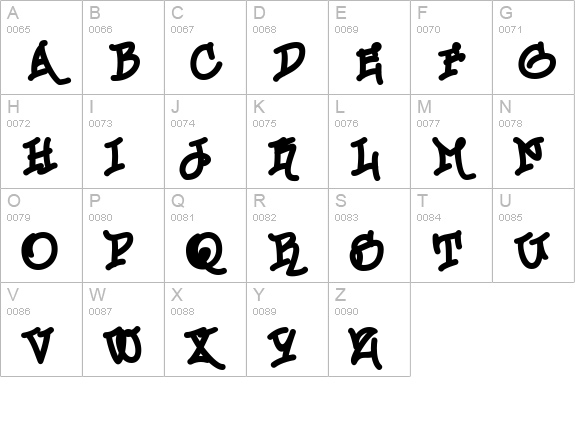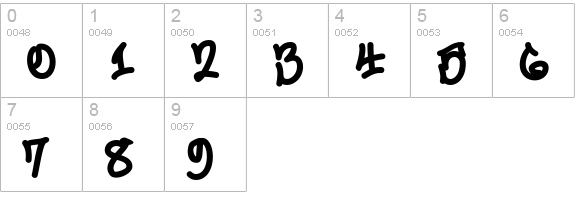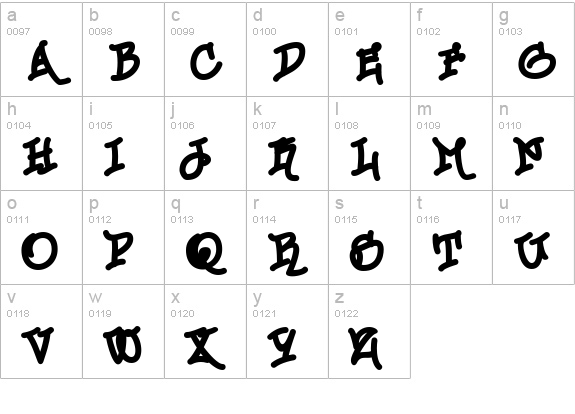
Urban Scrawl Chill font is a stunning display font that effortlessly combines urban grit with a chilled-out vibe. Its bold and dynamic letterforms exude a sense of coolness, making it perfect for a wide range of creative projects. This font captures the essence of street art and graffiti, with its rough edges and hand-drawn aesthetic. Every character is uniquely crafted, giving your designs a one-of-a-kind look. Whether you're designing posters, album covers, or social media graphics, Urban Scrawl Chill font will add an edgy and contemporary touch. The versatility of Urban Scrawl Chill font is truly remarkable. It can be used for both headlines and body text, bringing a sense of energy and excitement to your designs. Its legibility and readability make it suitable for a variety of applications, from branding and advertising to website design and packaging. What's even better is that Urban Scrawl Chill font is freely available to download at FontsMarket.com. You can unleash your creativity without any cost, making it an excellent choice for budget-conscious designers and artists. So go ahead and give your designs a rebellious and urban flair with Urban Scrawl Chill font.